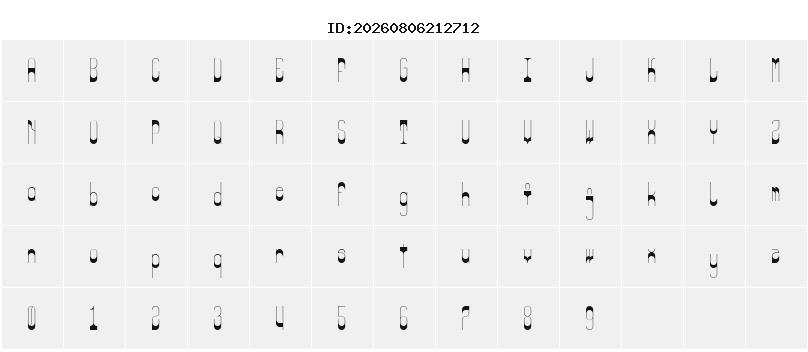
Odd weight Preview
• Font Name: Odd weight
• Full Font Name: Odd weightRegular
About Odd weight.ttf
Odd weight.ttf is a modern, elegant sans-serif font designed for ultimate readability and visual harmony. Perfect for branding, headlines, web design, and print materials.